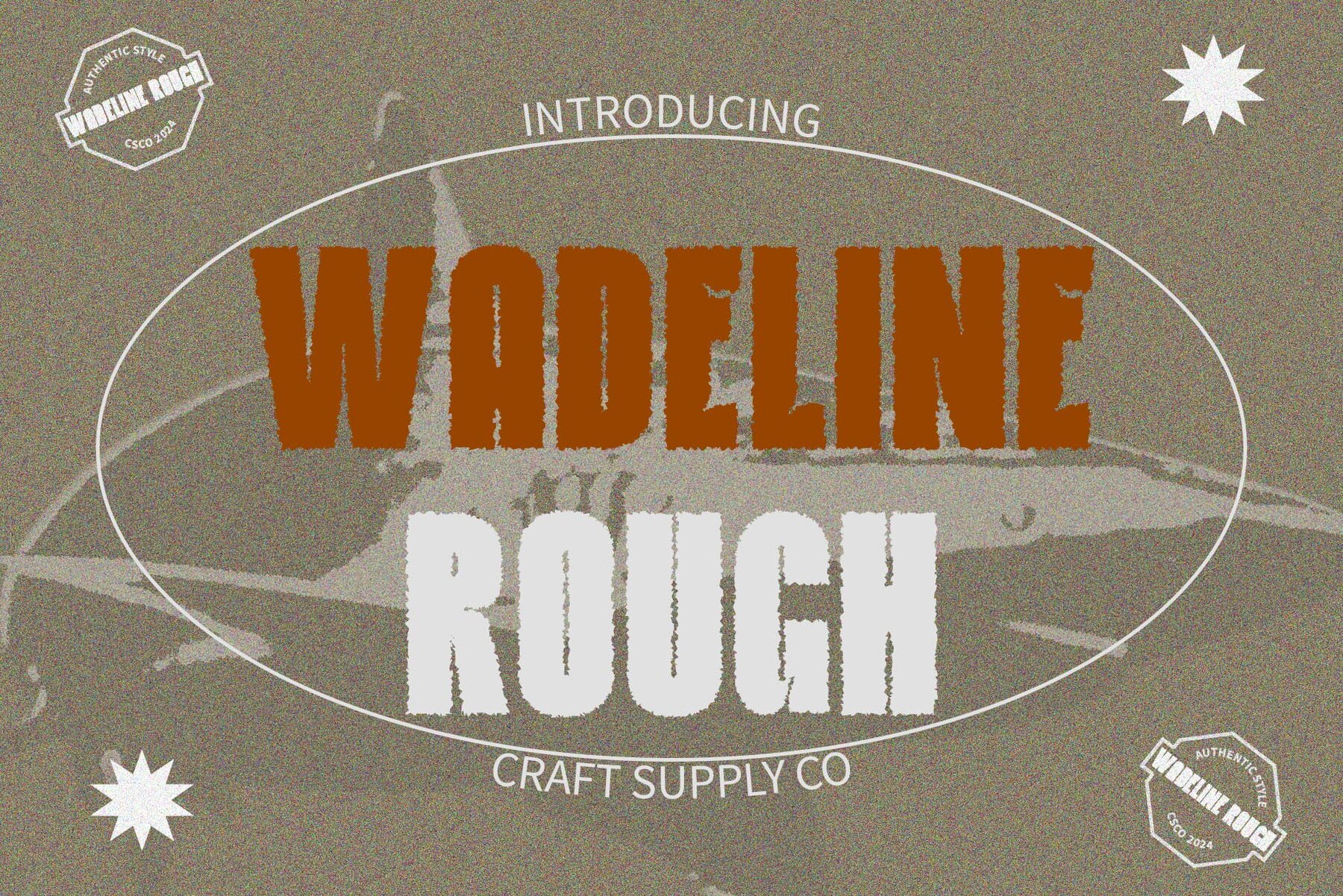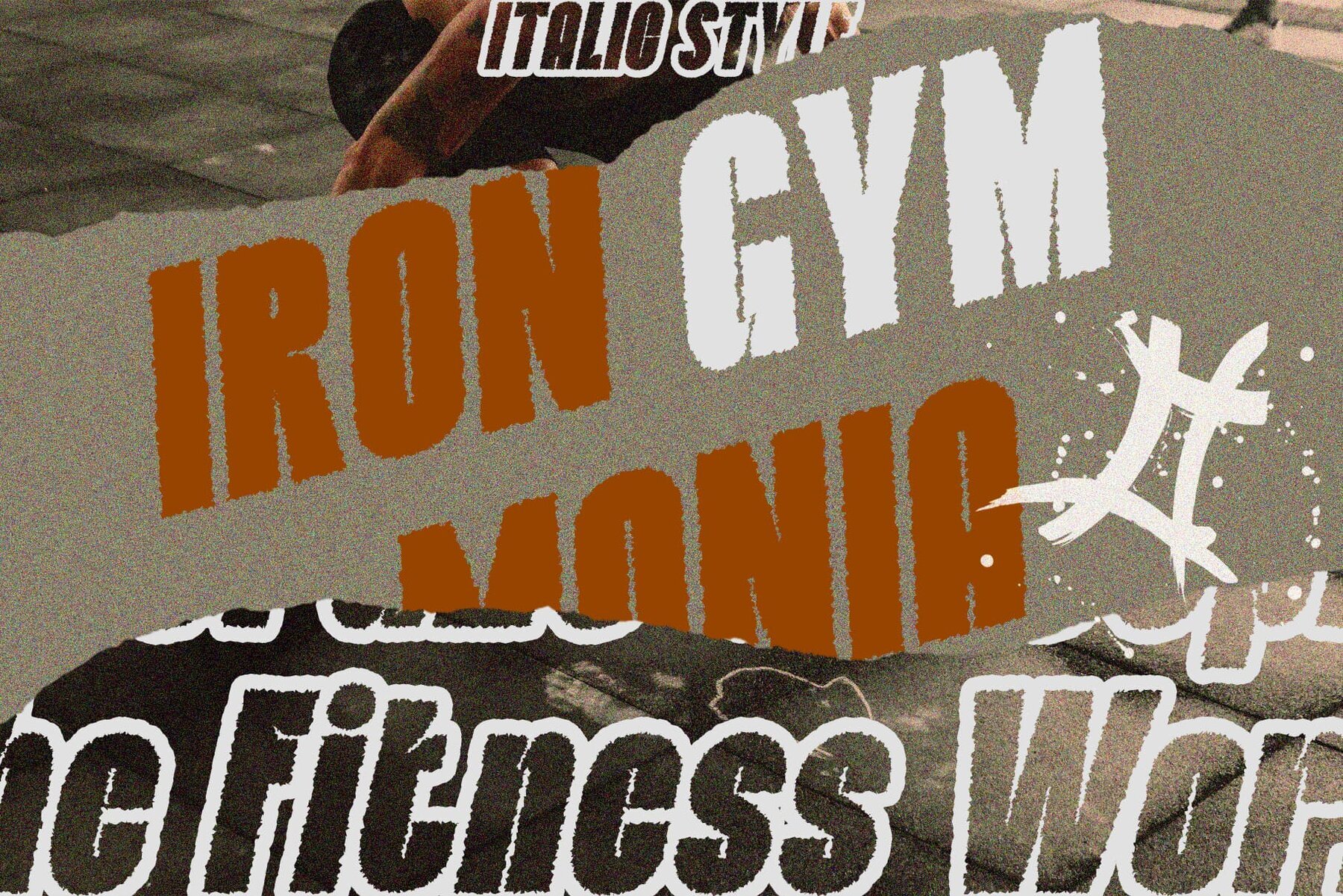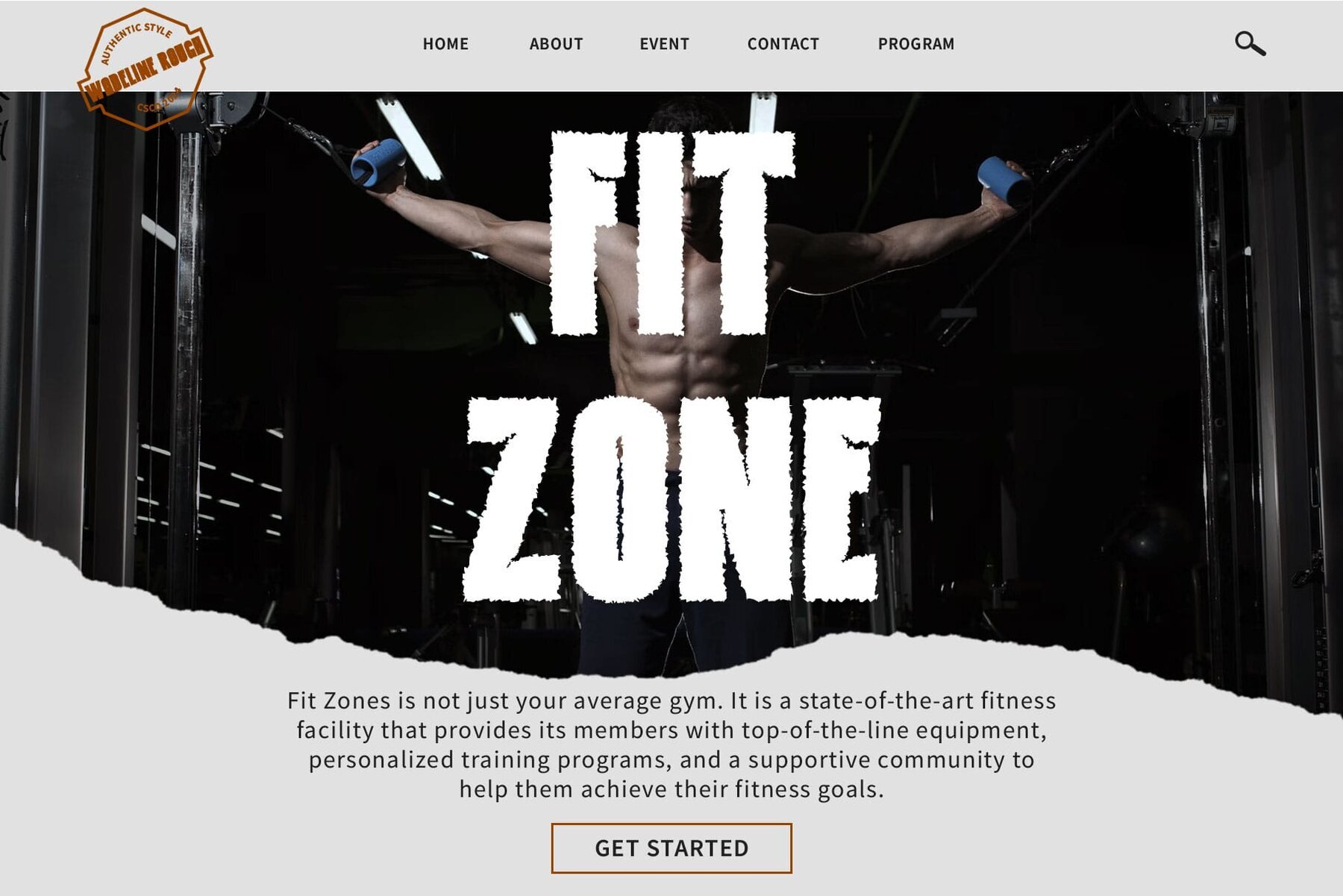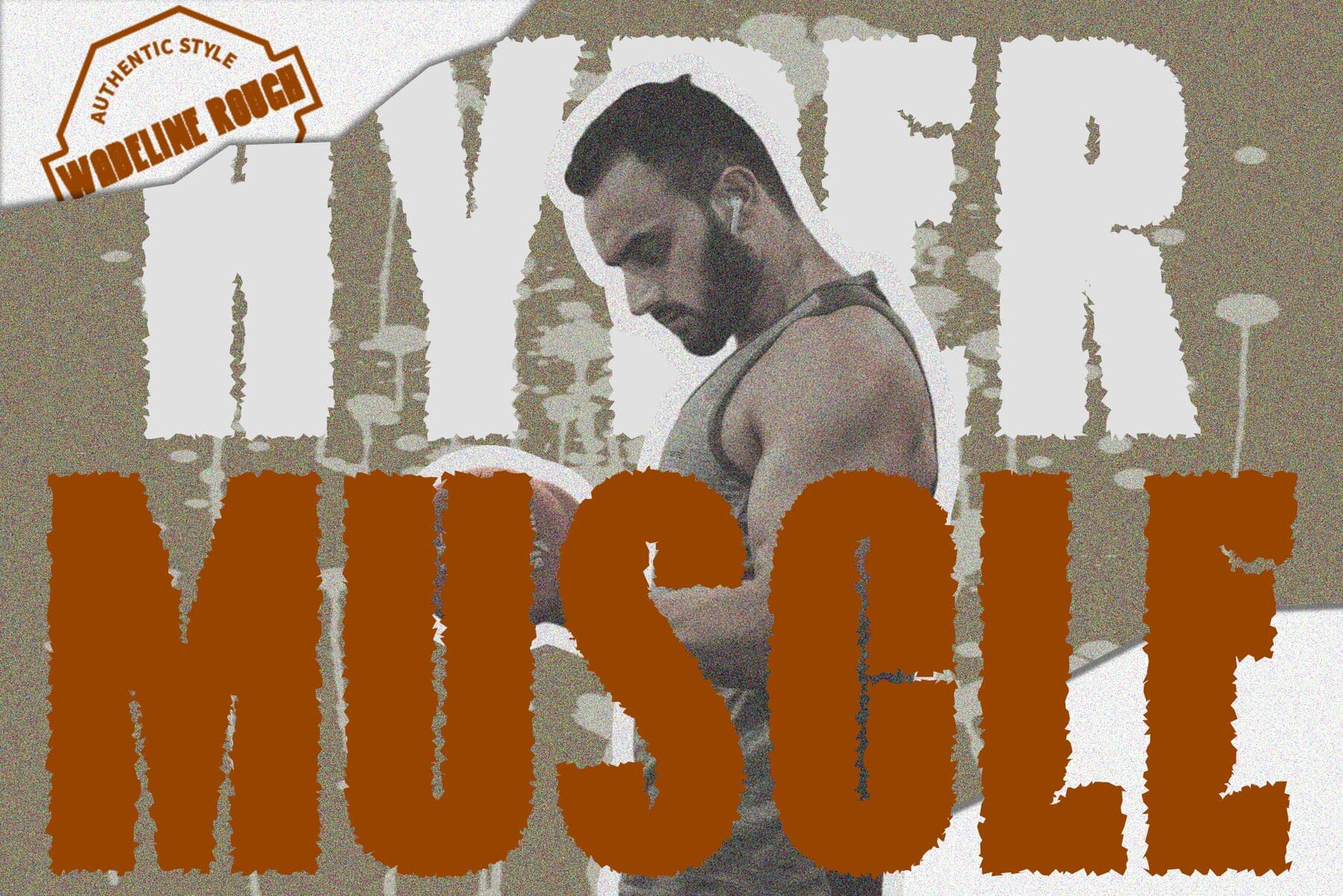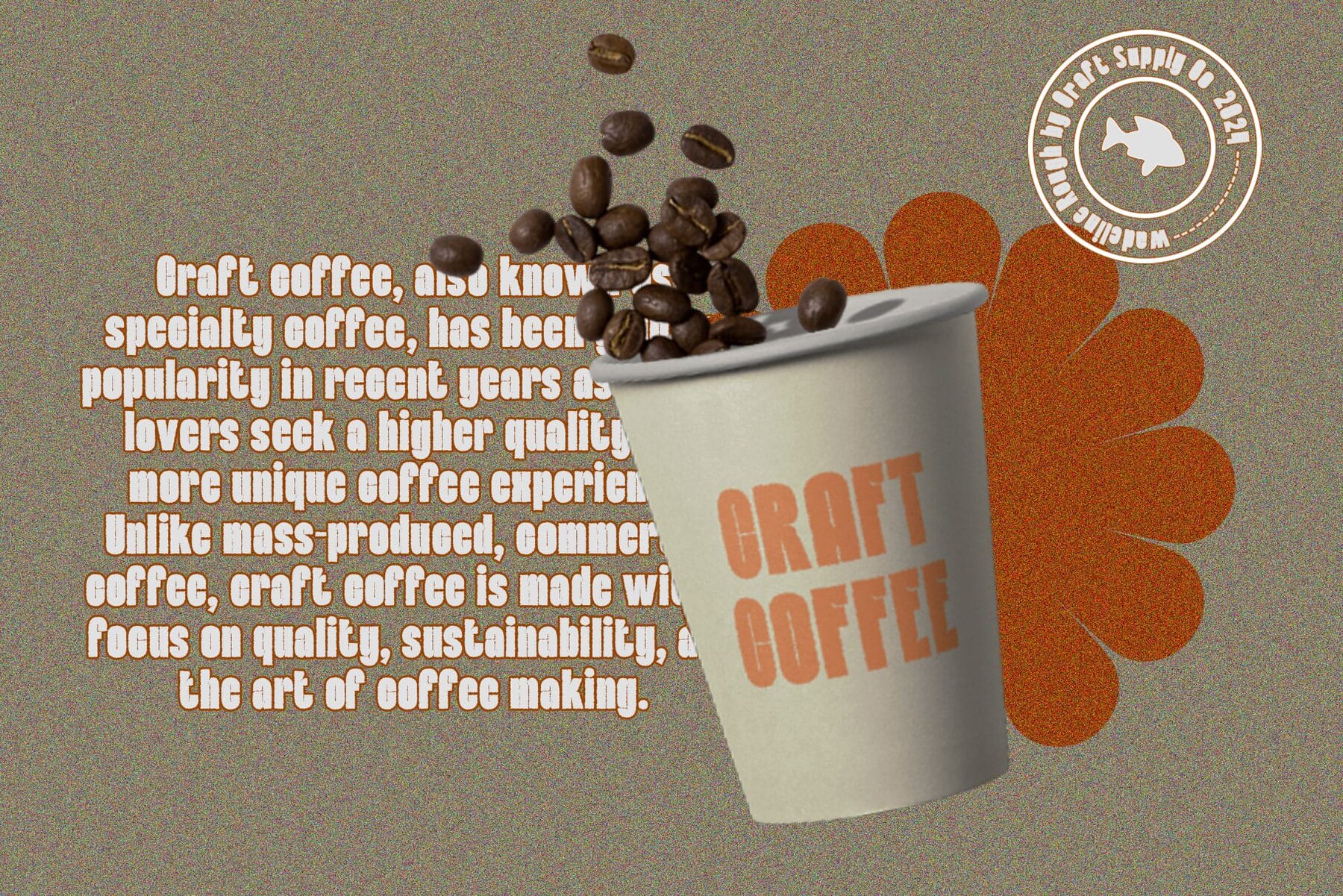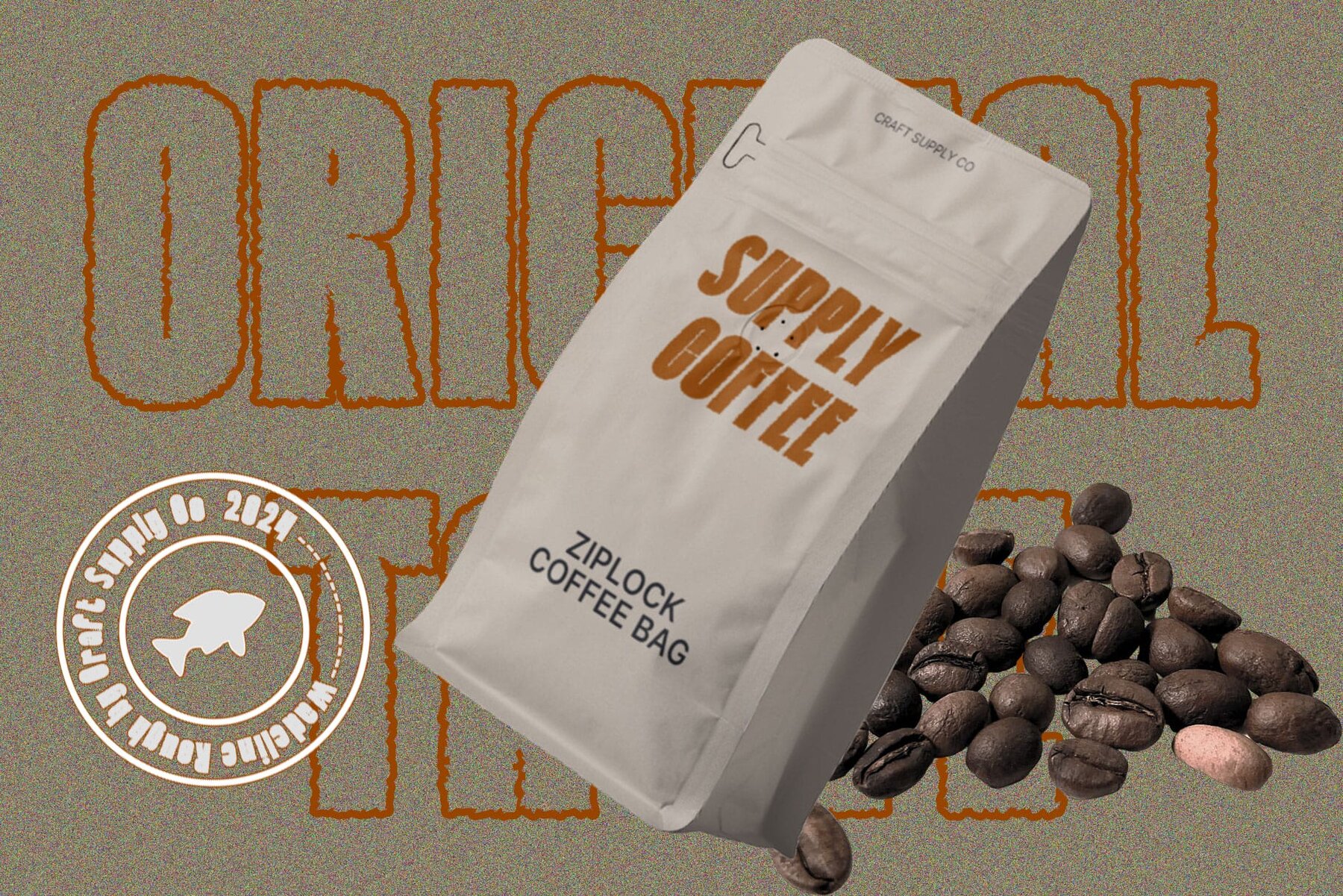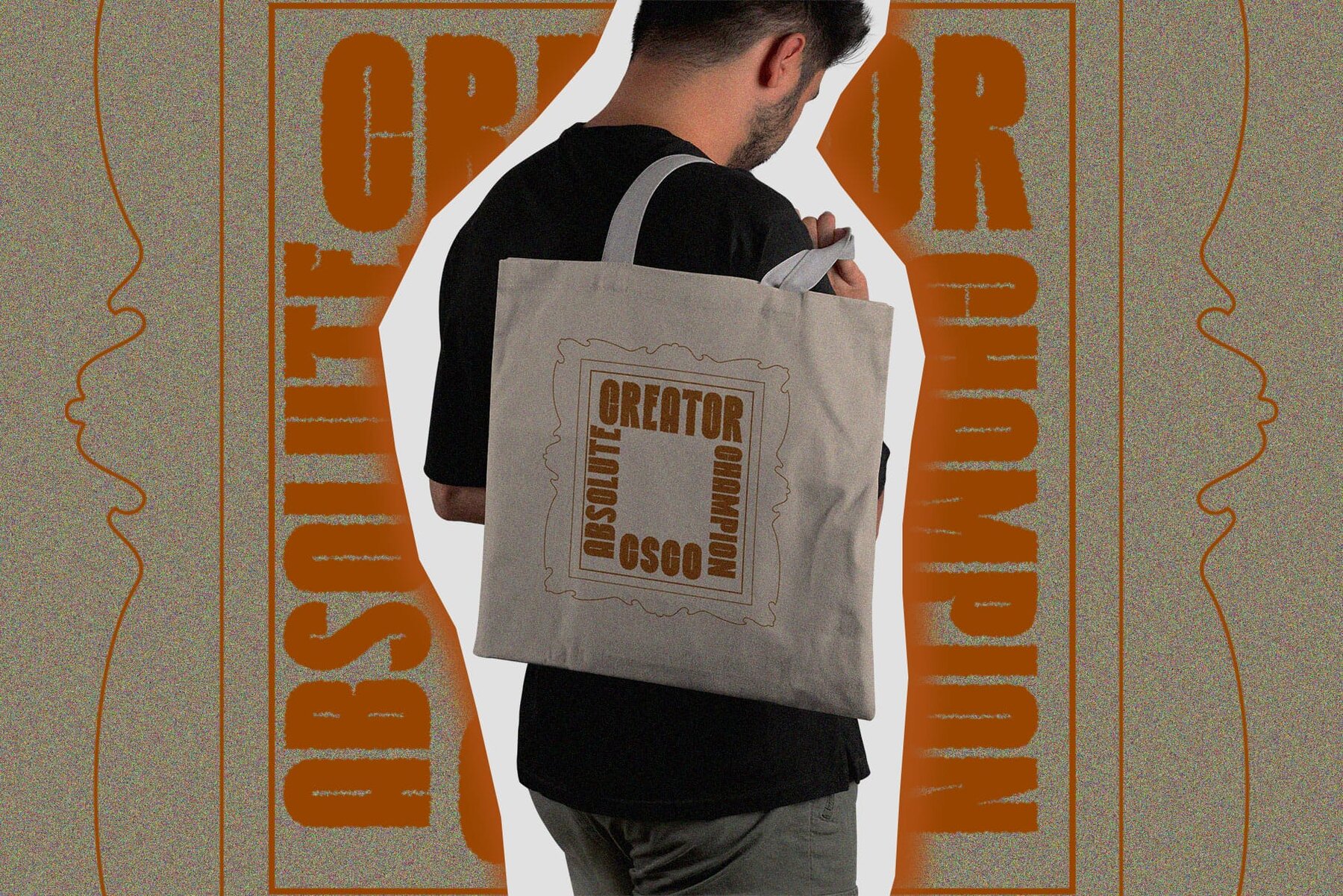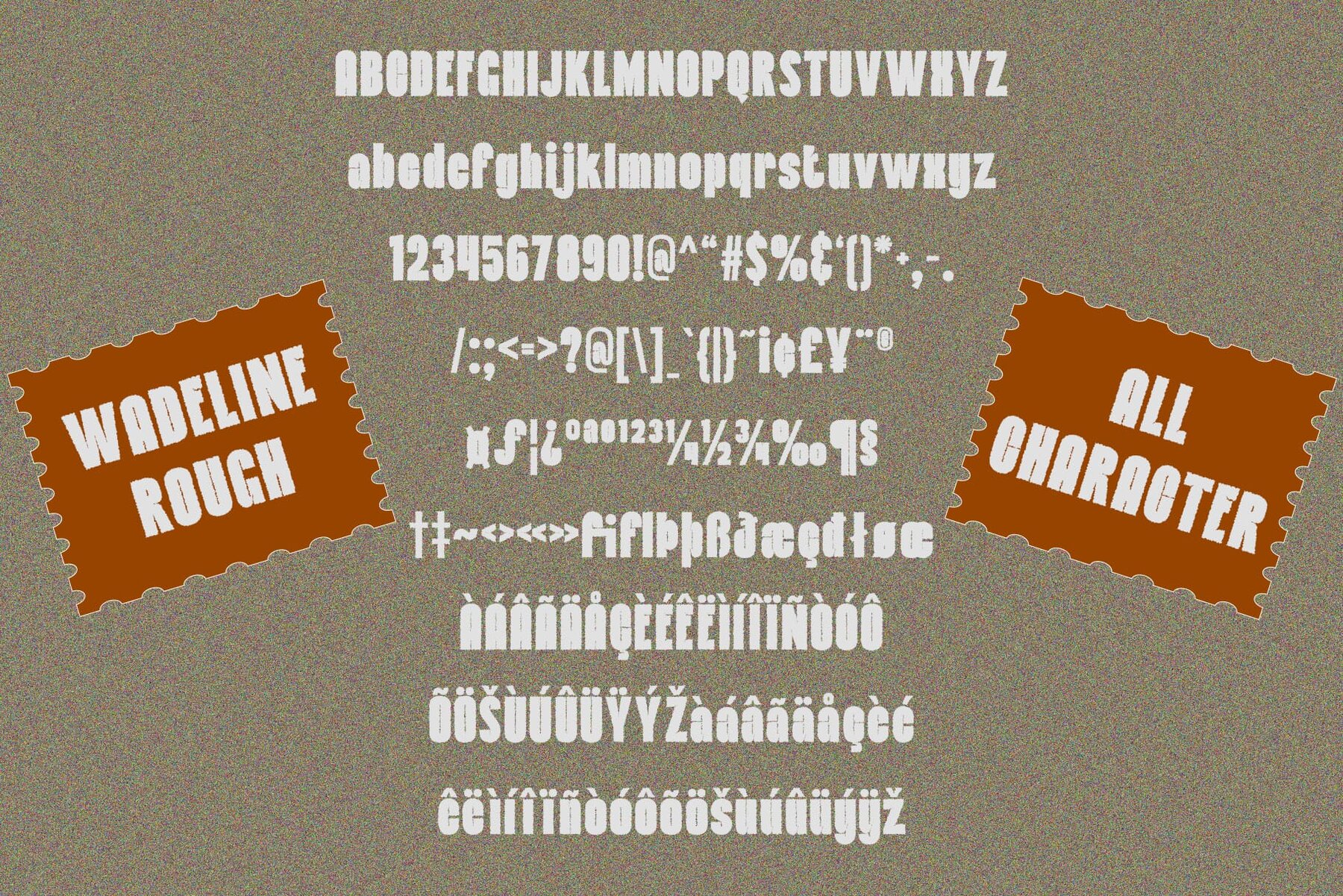
Wadeline Rough Font
Designed by Craft Supply Co., Wadeline Rough is a narrow sans serif font that is distinctive for its tight letter spacing and bold weight. This font is ideal for making a strong visual impact, ensuring that any message stands out prominently. Wadeline Rough utilizes a compact structure that maximizes space efficiency, making it perfect for headlines and other display purposes where space is at a premium. The bold weight of the letters helps in drawing attention, making it a great choice for impactful branding. The specific design features of Wadeline Rough make it especially suitable for advertising, posters, and any digital or printed material that requires a commanding presence.Wadeline Rough: Bold and Impactful Display Font
Narrow Sans Serif Design
Key Features and Usage